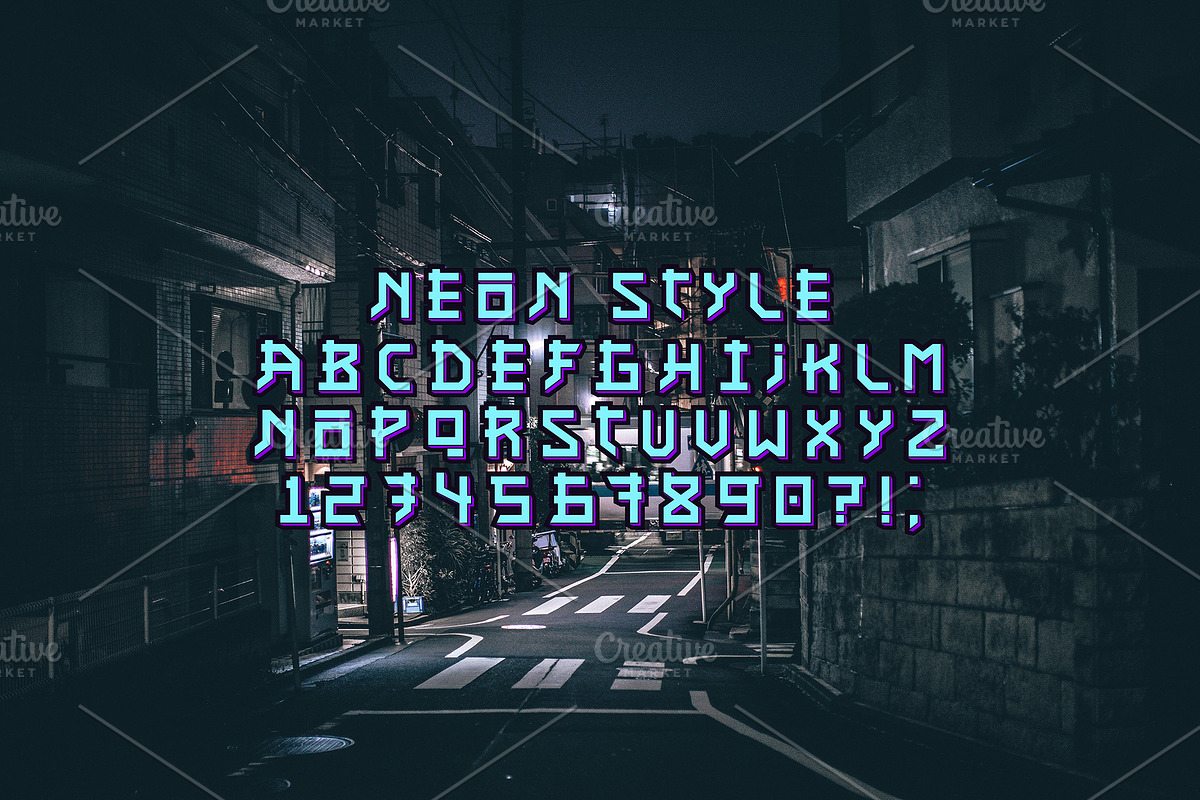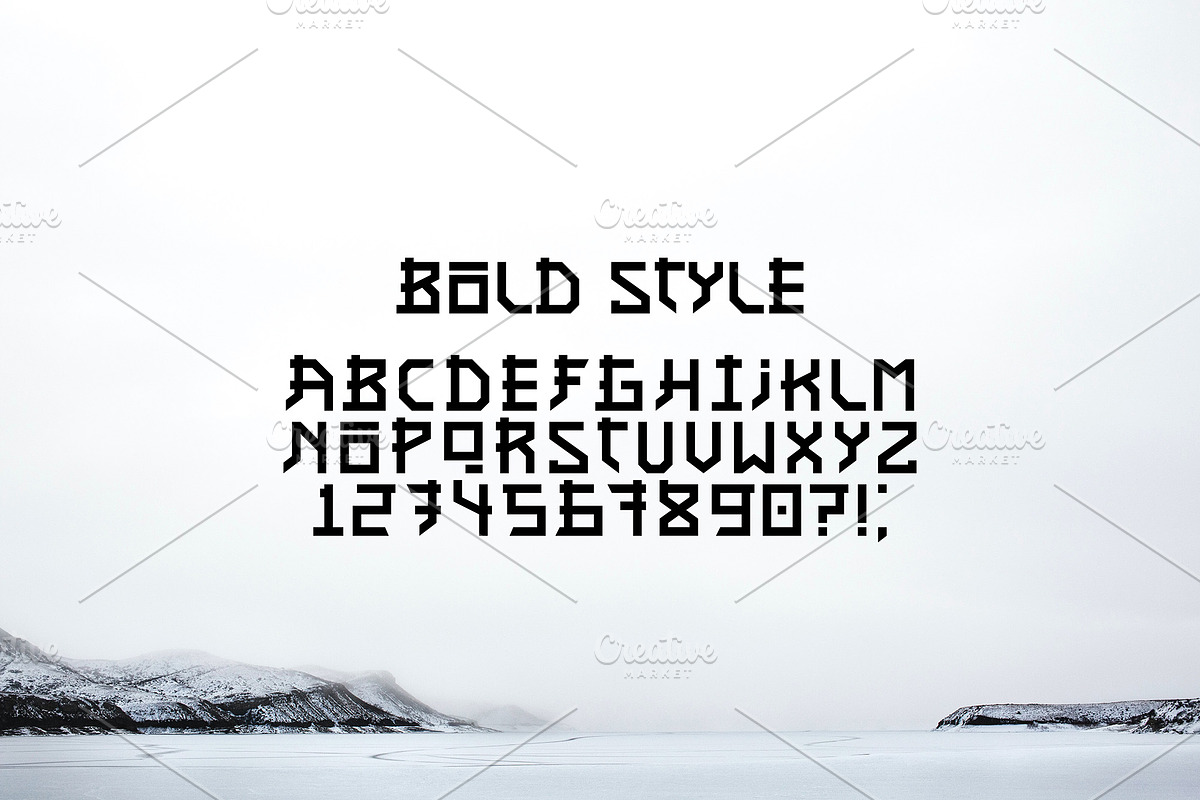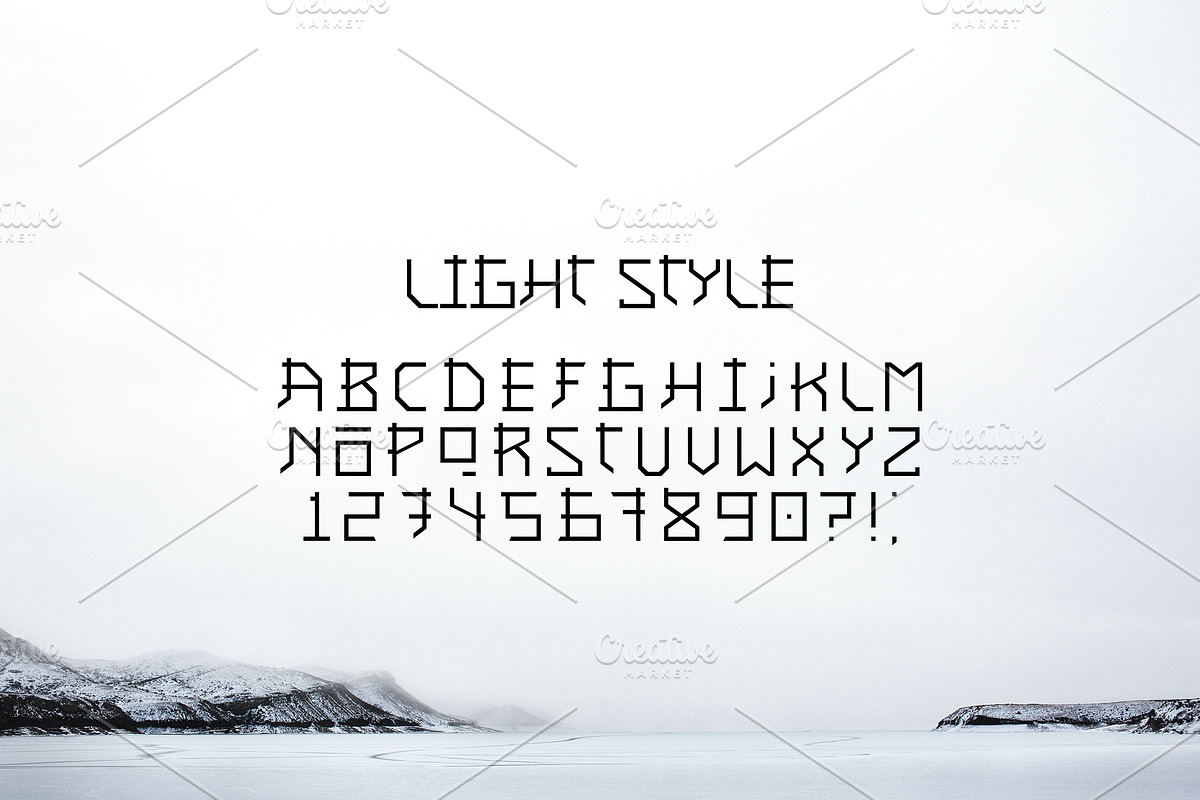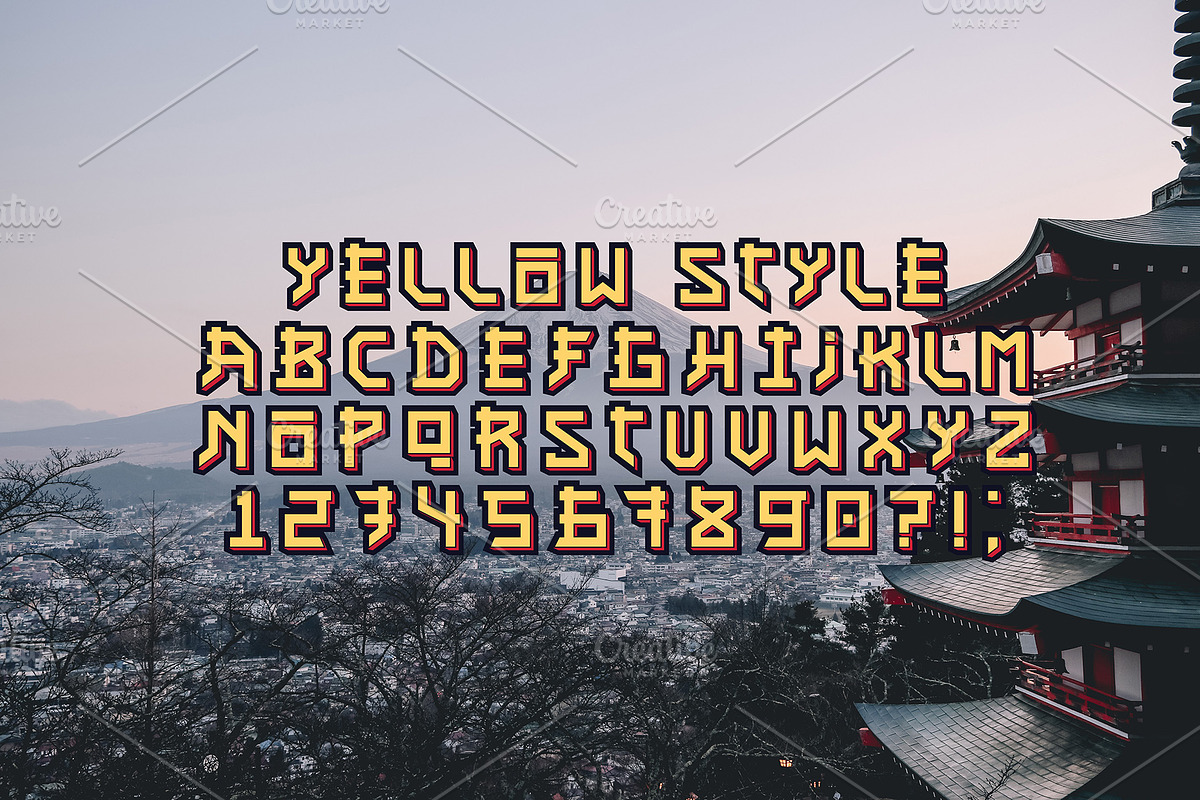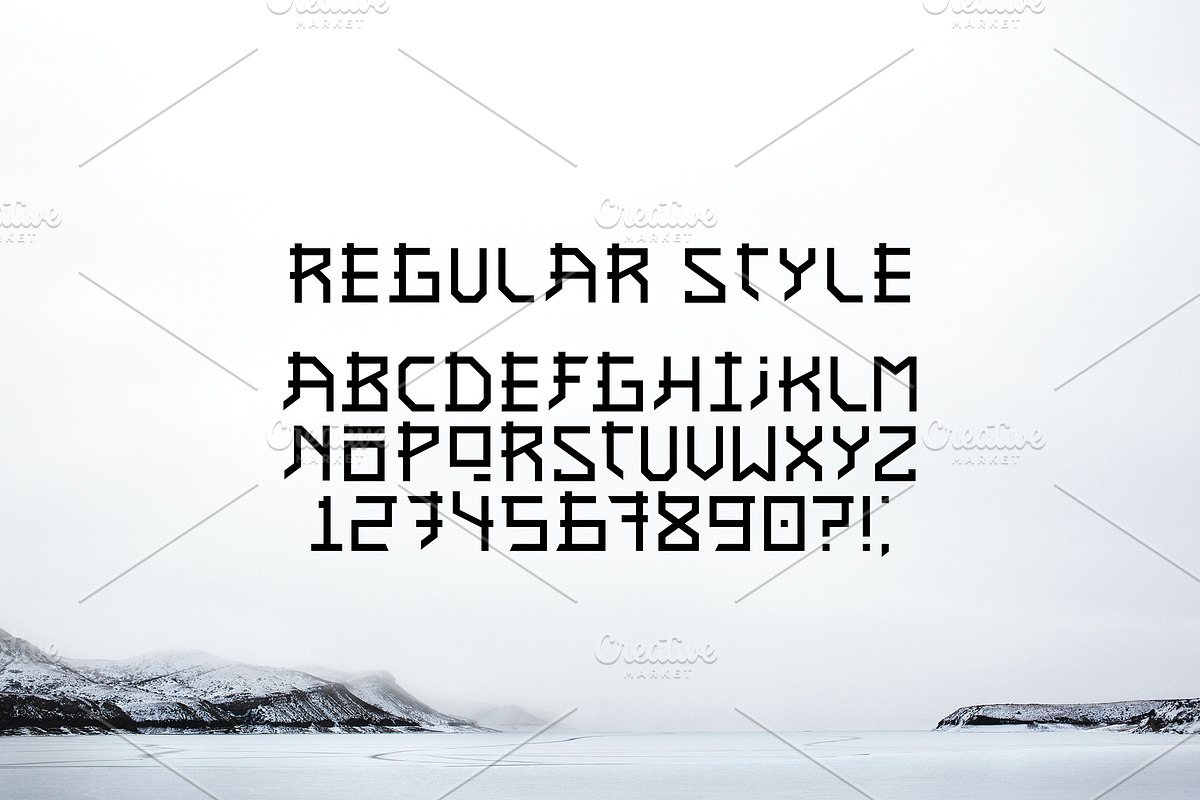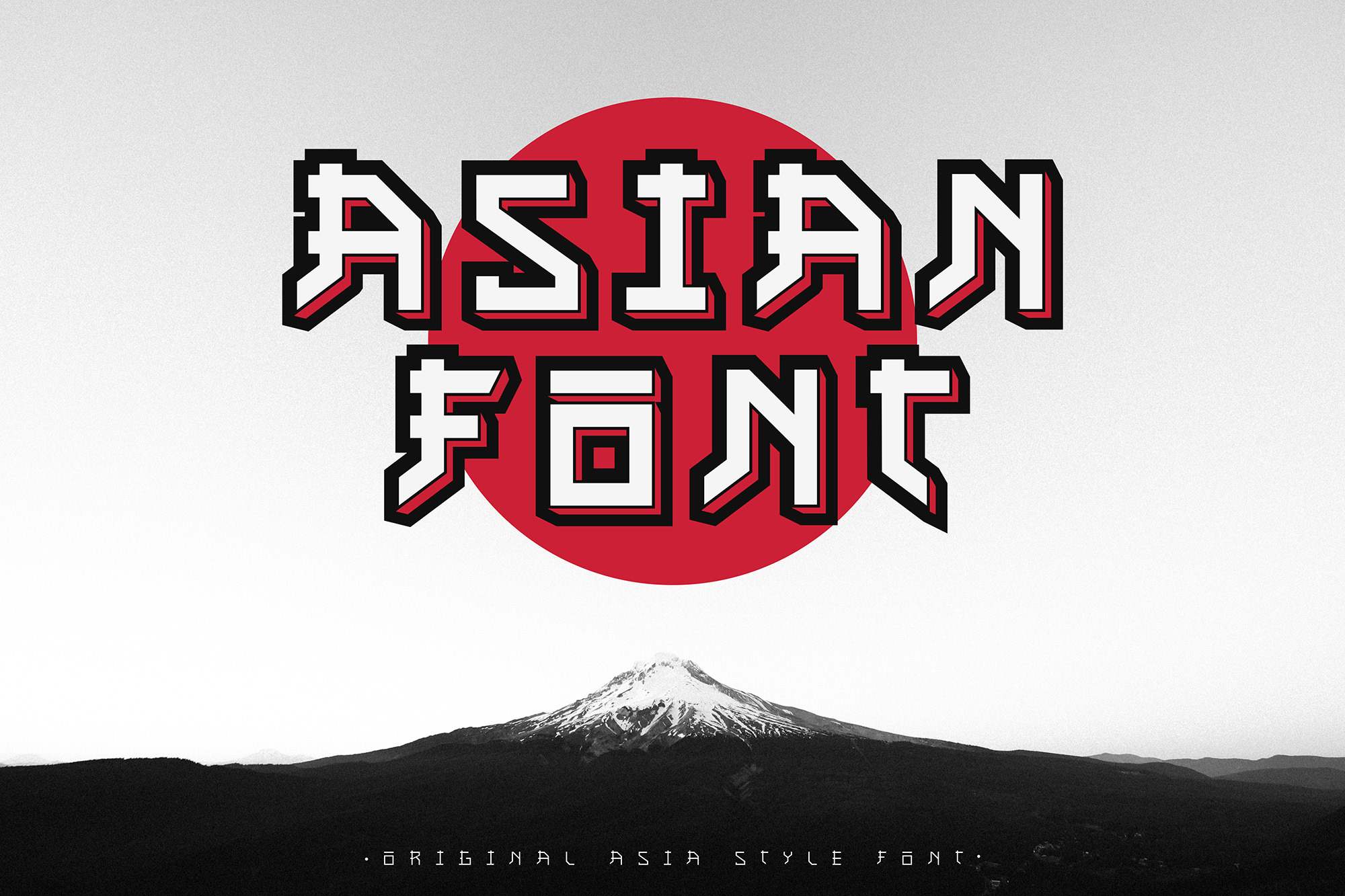
Asian font / japanese style.
- Asian font. Set of english letters and numbers in the style of hieroglyphs and asia. 3 black and 2 color fonts. Letters and numbers for your design. Five different fonts provide an opportunity to choose a more suitable design, font with a stroke, a slanted font, and a regular font in a package, all objects are made in vector format that can be used in any size without loss of quality.
- CartoonYellow font
- CartoonBlue font
- CartoonBlack font